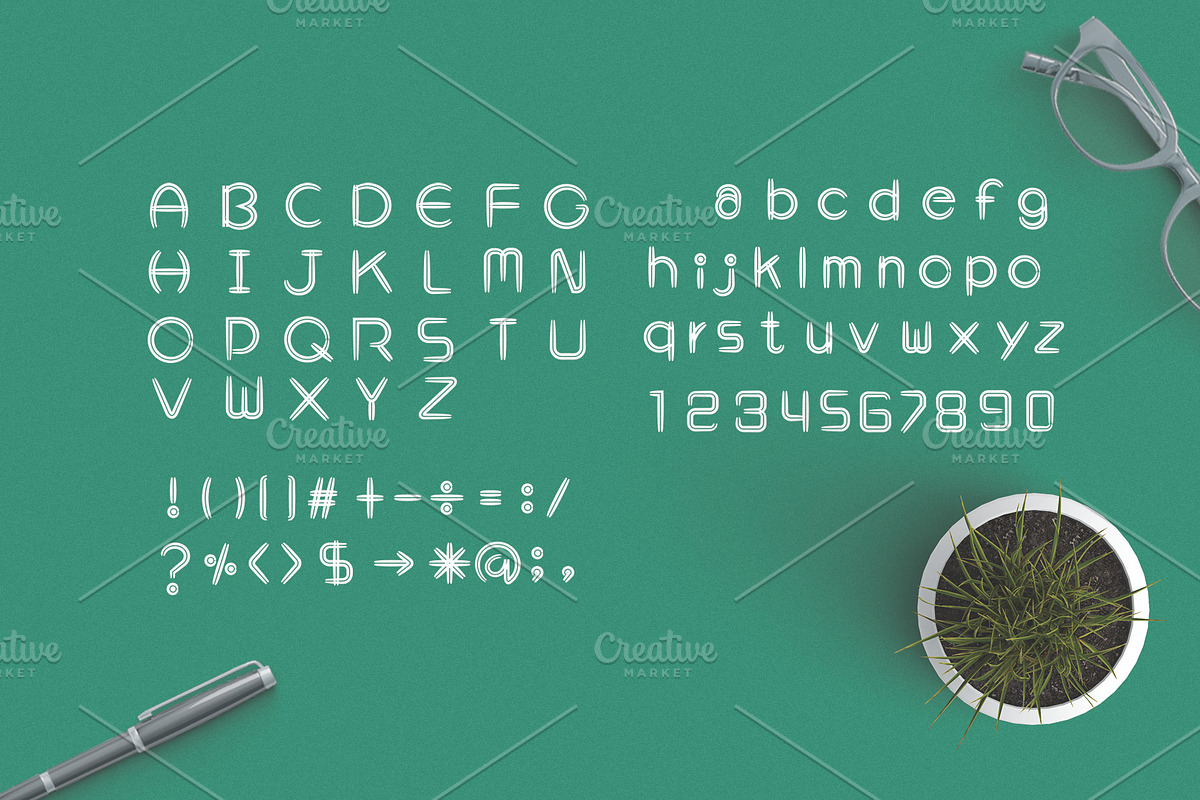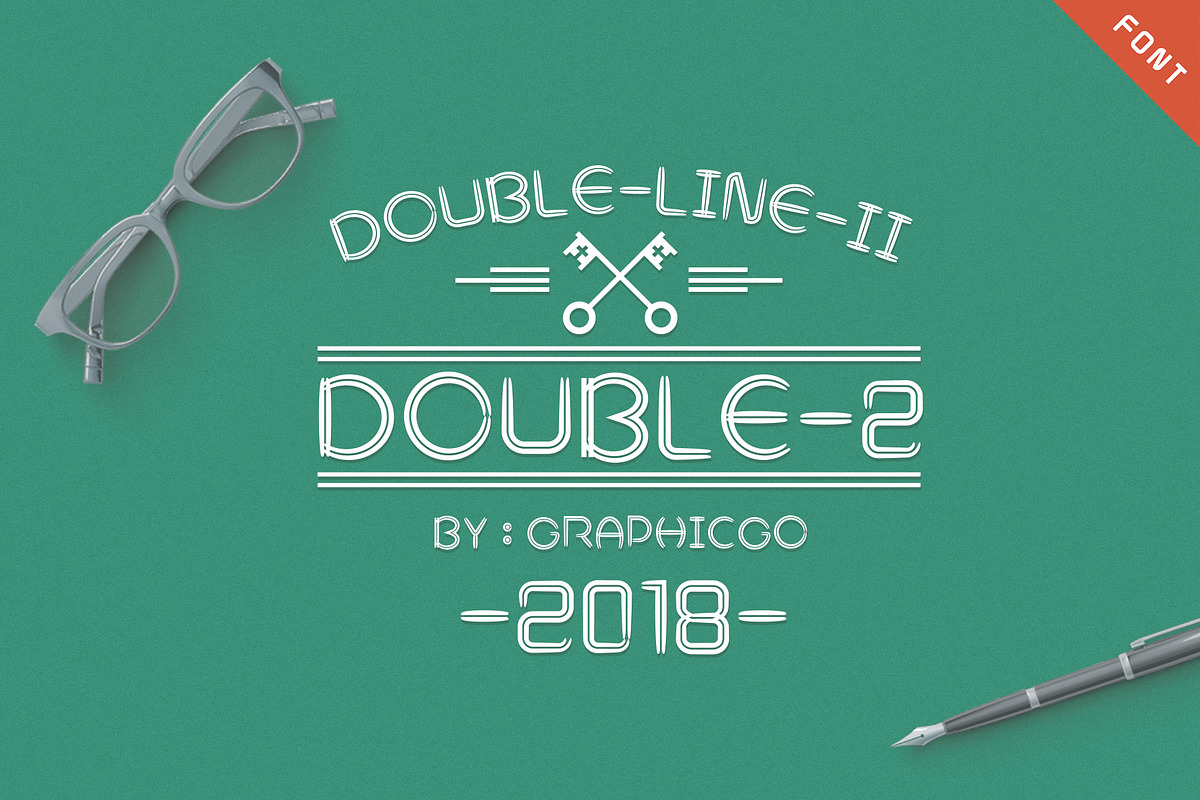
DoubleLine2 Font
DoubleLine2 Font is created base on Graphicgo font with double lines of pencil style. It is perfect for greeting cards, labels, quotes, posters, kid projects, branding, packaging, websites and much more.
Uppercase and Lowercase
DoubleLine2 Font by Graphicgo fits naturally into Branding, posters, packaging, typography.